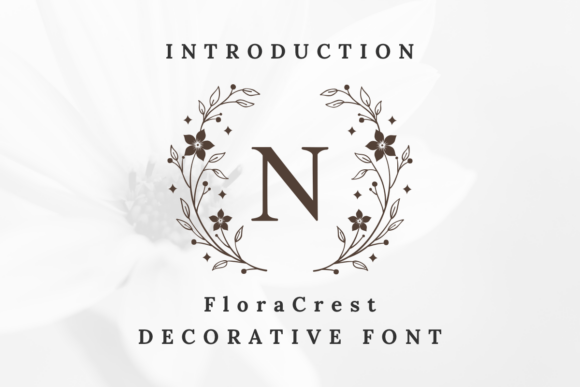
Introducing Flora Crest Font: Elevate Your Design with Timeless Elegance
In the world of typography, few fonts manage to capture the essence of luxury, sophistication, and classic elegance as effectively as FloraCrest. This decorative monogram-style font is a masterpiece that seamlessly blends traditional serif refinement with the intricate beauty of botanical illustrations. Each letter and numeral in FloraCrest is meticulously framed by a symmetrical floral crest, creating an ornate and sophisticated aesthetic that instantly elevates any design.
The Essence of FloraCrest: A Blend of Classic Elegance and Botanical Charm
FloraCrest is more than just a font; it’s an experience. It brings to mind images of vintage luxury, high-end branding, and exclusive events. The font’s design is characterized by its unique blend of classic serif elements and intricate floral patterns. Each character, from uppercase letters to numerals, is beautifully framed by a symmetrical floral crest. This attention to detail and commitment to aesthetic excellence make FloraCrest an ideal choice for projects that demand the highest level of sophistication.
Ideal Applications for FloraCrest
Given its luxurious and elegant appearance, FloraCrest is perfectly suited for a variety of applications where detail and impact are crucial. Some of the ideal uses for this font include:
- Luxury Branding: Elevate your brand’s identity with a font that exudes elegance and refinement.
- Wedding Invitations: Add a touch of classic romance and sophistication to your wedding invitations.
- Stationery: Bring a level of luxury and professionalism to your stationery designs.
- Packaging: Stand out in the market with packaging that features a distinctive and elegant typographic style.
- Personalized Initials: Create unique and meaningful personalized items with beautifully designed initials.
The Unique Features of FloraCrest
One of the standout features of FloraCrest is its consistent use of wreath motifs across both uppercase and numeral sets. This consistency ensures a cohesive and regal appearance, making it an excellent choice for projects that require a typographic solution with timeless beauty and ornamental grace. The symmetrical floral crests that frame each character are not only aesthetically pleasing but also meticulously designed to ensure that the font remains legible and impactful.
Best Suited for Display Purposes
FloraCrest is best suited for display purposes where detail and impact are paramount. While it may not be the most practical choice for body text due to its ornate design, it shines in applications where its elegance and sophistication can be fully appreciated. Whether you’re designing a luxury brand’s logo, a wedding invitation, or a high-end product’s packaging, FloraCrest can add a level of refinement and charm that sets your design apart.
Timeless Beauty and Ornamental Grace
The term “timeless” is often used to describe designs that remain relevant and beautiful across generations. FloraCrest embodies this quality, drawing inspiration from classic serif fonts and botanical illustrations to create a font that will never go out of style. Its ornamental grace, characterized by the intricate floral crests, adds a level of sophistication and elegance that is hard to achieve with more straightforward typographic designs.
FloraCrest is a decorative monogram-style font that offers a unique blend of classic serif elegance and intricate botanical illustration. Its symmetrical floral crests, consistent wreath motifs, and sophisticated aesthetic make it an ideal choice for luxury branding, wedding invitations, stationery, packaging, and personalized initials. While best suited for display purposes, FloraCrest brings a level of refined charm and vintage appeal that can elevate any design. For projects that demand timeless beauty and ornamental grace, FloraCrest is an exceptional typographic solution that is sure to leave a lasting impression.
Tips for Using FloraCrest Effectively
To get the most out of FloraCrest, consider the following tips:
- Pair with Simpler Fonts: When using FloraCrest for headings or titles, pair it with a simpler, more legible font for body text to create contrast and ensure readability.
- Adjust Size and Color: Experiment with different sizes and colors to make the most of FloraCrest’s detailed design. Larger sizes will showcase its intricate beauty, while smaller sizes can still convey elegance.
- Consider the Background: Ensure that the background complements the font. A solid, contrasting color can make FloraCrest stand out, while a busy or dark background might detract from its beauty.
Final Thoughts
FloraCrest stands out in the world of typography as a font that beautifully merges classic elegance with botanical charm. Its ornate design, characterized by symmetrical floral crests and consistent wreath motifs, makes it a versatile and sophisticated choice for a variety of design projects. Whether you’re aiming to create a luxurious brand identity, a stunning wedding invitation, or elegant stationery, FloraCrest offers the timeless beauty and ornamental grace needed to make your design truly unforgettable.